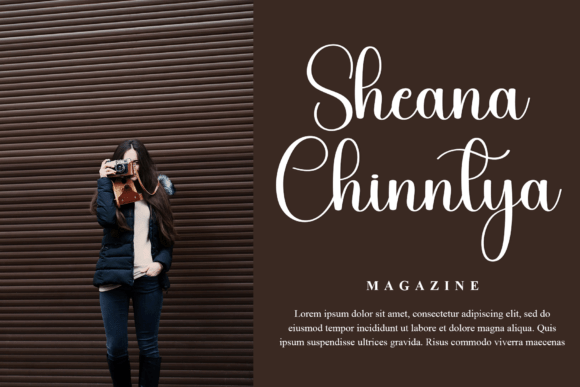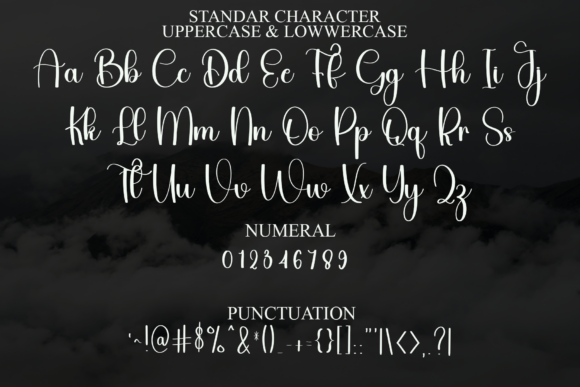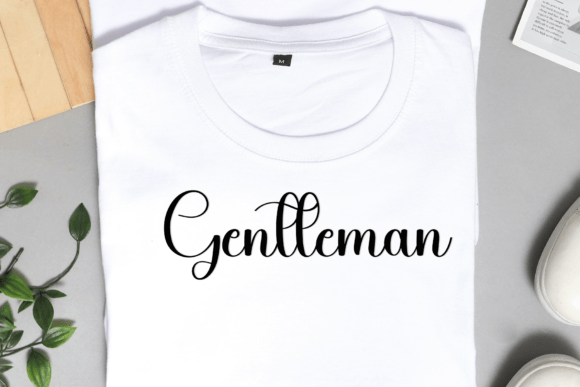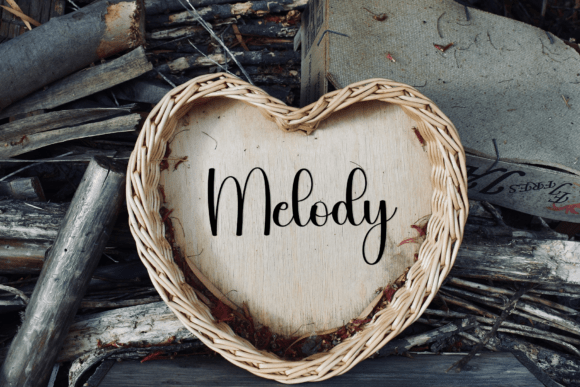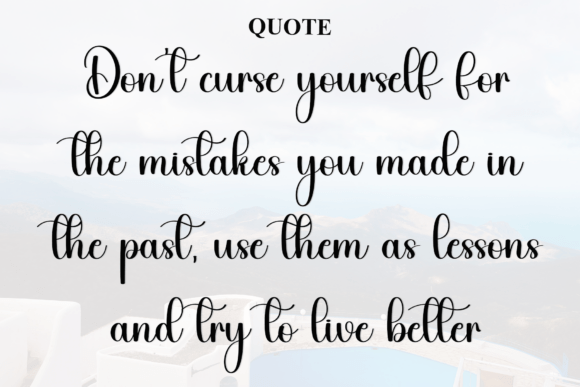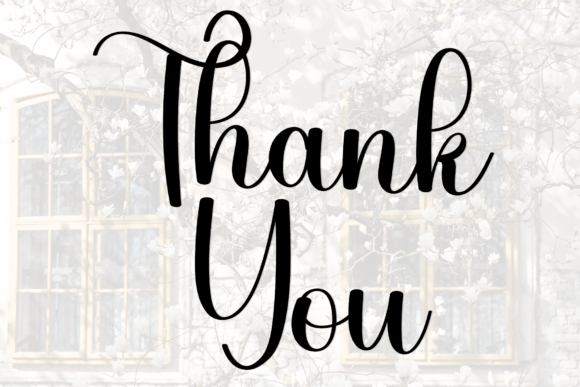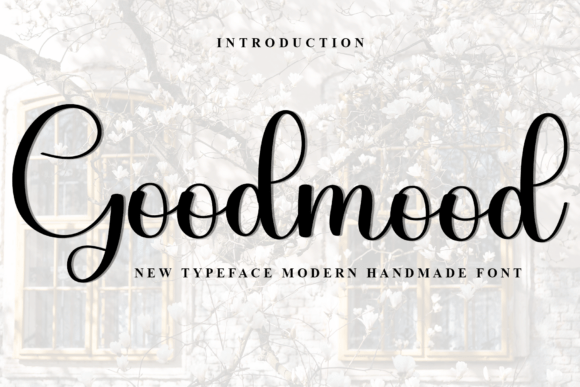
Introducing Goodmood Font: The Perfect Blend of Friendliness and Creativity
Are you tired of using traditional fonts that lack personality and warmth? Look no further than Goodmood Font, a casual and creative typeface that exudes friendliness and approachability. With its round, playful strokes, Goodmood Font is perfect for adding a personal touch to your designs, whether you’re working on personal projects, invitations, or social media graphics.
The Charm of Goodmood Font
Goodmood Font boasts a charming, hand-drawn aesthetic that adds a fun and unique touch to any design. Its relaxed and approachable feel makes it ideal for designers and crafters who want to create a warm and inviting atmosphere in their work. Whether you’re designing a birthday invitation, a social media post, or a personal blog, Goodmood Font is sure to bring a smile to your audience’s faces.
Key Features of Goodmood Font
• Hand-Drawn Aesthetic: The font’s hand-drawn design gives it a unique and personal touch, perfect for adding a human element to your designs.
• Playful Strokes: Goodmood Font’s round, playful strokes create a relaxed and approachable feel, making it perfect for casual and creative projects.
Use Cases for Goodmood Font
Goodmood Font is versatile and can be used in a variety of design projects, including:
• Personal Projects: Add a personal touch to your personal projects, such as blogs, journals, or scrapbooking.
• Invitations: Create warm and inviting invitations for birthdays, weddings, or other special occasions.
• Social Media Graphics: Use Goodmood Font to create engaging and friendly social media graphics that will resonate with your audience.
• Crafting and DIY Projects: Add a creative touch to your crafting and DIY projects, such as handmade cards, gift tags, or signs.
Tips for Using Goodmood Font
Here are some tips for getting the most out of Goodmood Font:
• Pair with Other Fonts: Experiment with pairing Goodmood Font with other fonts to create a unique and interesting contrast.
• Use in Headings and Titles: Use Goodmood Font in headings and titles to add a playful and creative touch to your designs.
• Add Texture and Patterns: Add texture and patterns to your designs to complement the playful and hand-drawn aesthetic of Goodmood Font.
Goodmood Font is a versatile and creative typeface that is perfect for designers and crafters who want to add a personal touch to their designs. With its charming, hand-drawn aesthetic and playful strokes, Goodmood Font is sure to bring warmth and friendliness to any project. Whether you’re working on personal projects, invitations, or social media graphics, Goodmood Font is a great choice for adding a unique and creative touch.